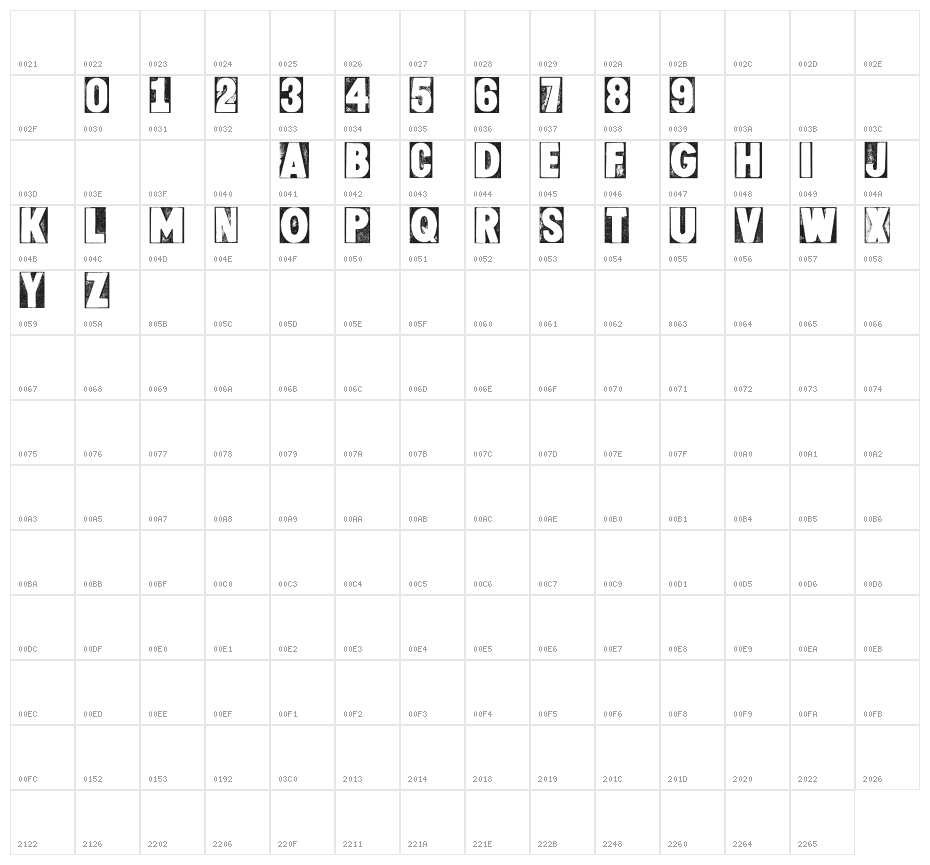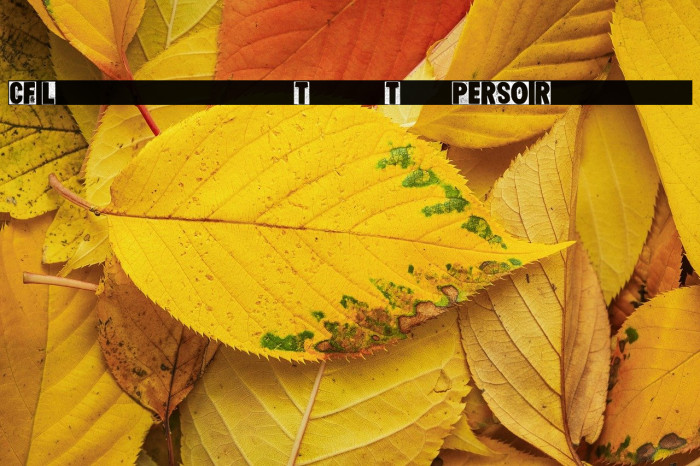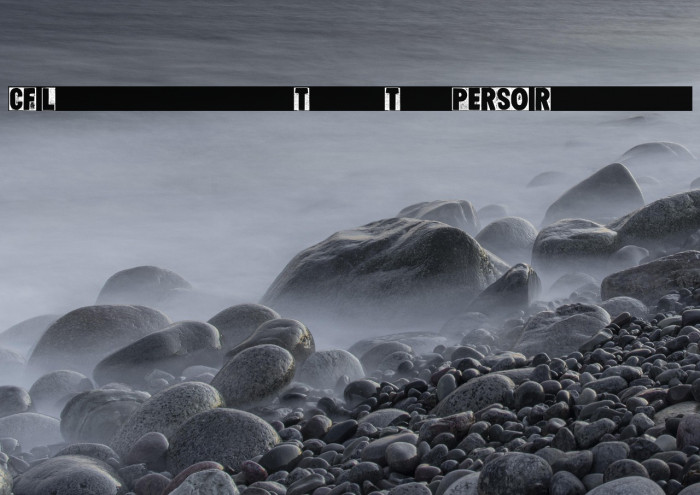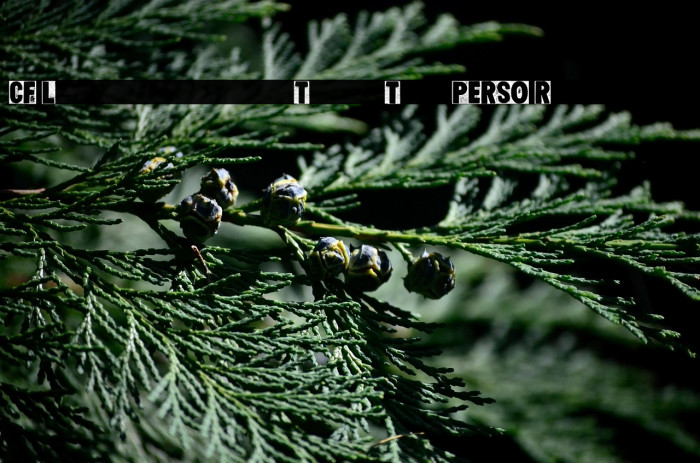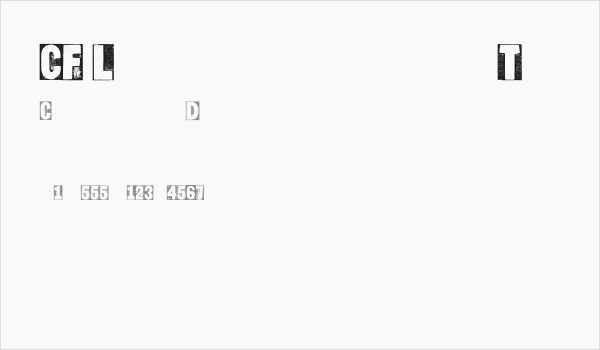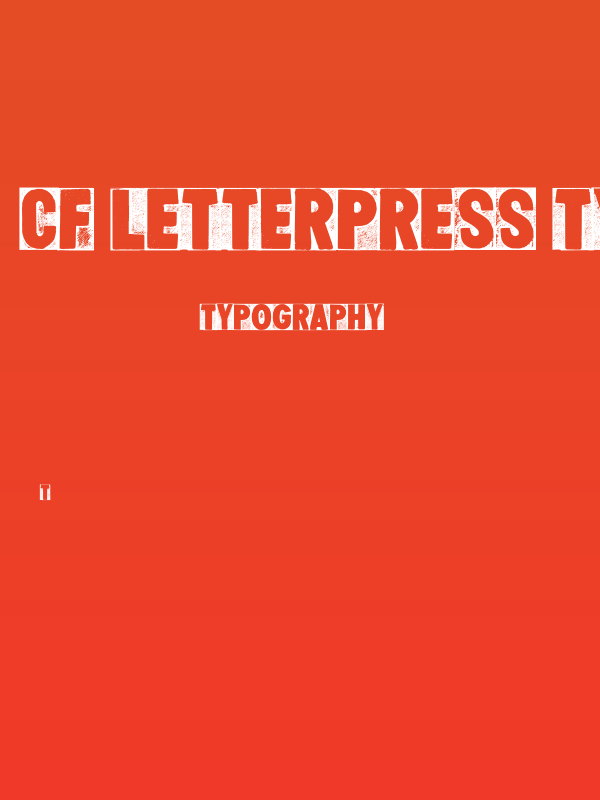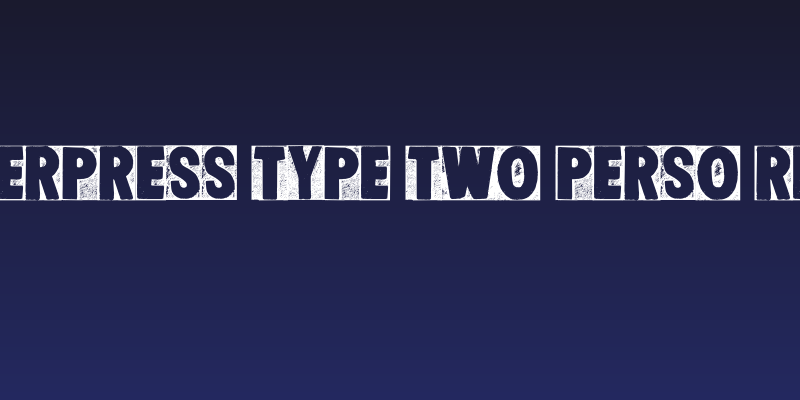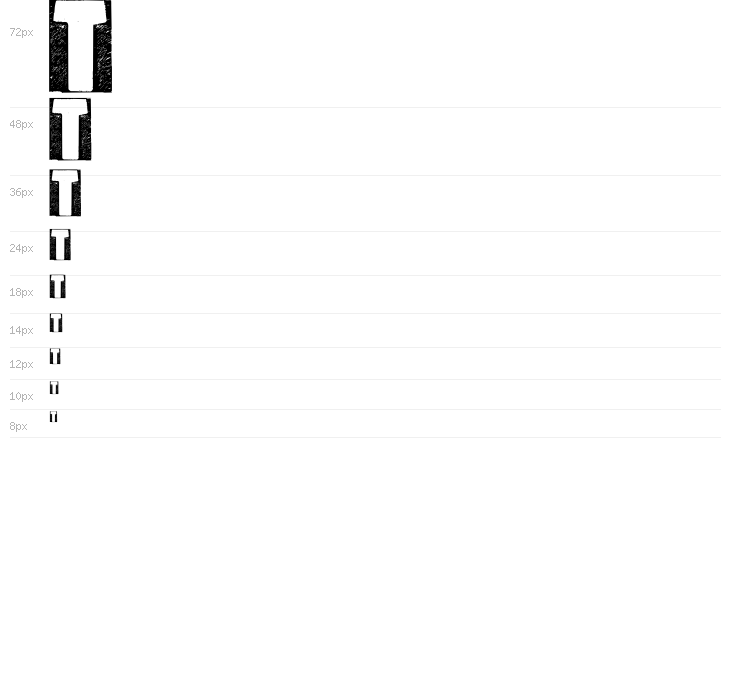
CF Letterpress Type Two PERSO Regular Font
CF Letterpress Type Two PERSO Regular Description
This font features a bold, distressed style reminiscent of vintage letterpress printing. The characters are robust and blocky, with a textured appearance that gives them a worn, industrial feel. The uppercase letters and numbers are uniformly bold, with slightly rounded edges that soften the overall impact. The texture within each character adds depth and character, making it ideal for projects that require a rugged, handcrafted aesthetic. The font's distinct style is perfect for creating eye-catching headlines, posters, and branding materials that need a touch of retro charm.
| Use Case | Headlines, Posters, Branding |
| Proposed Projects | Ideal for posters, branding, headlines, and any design needing a vintage, handcrafted look. |